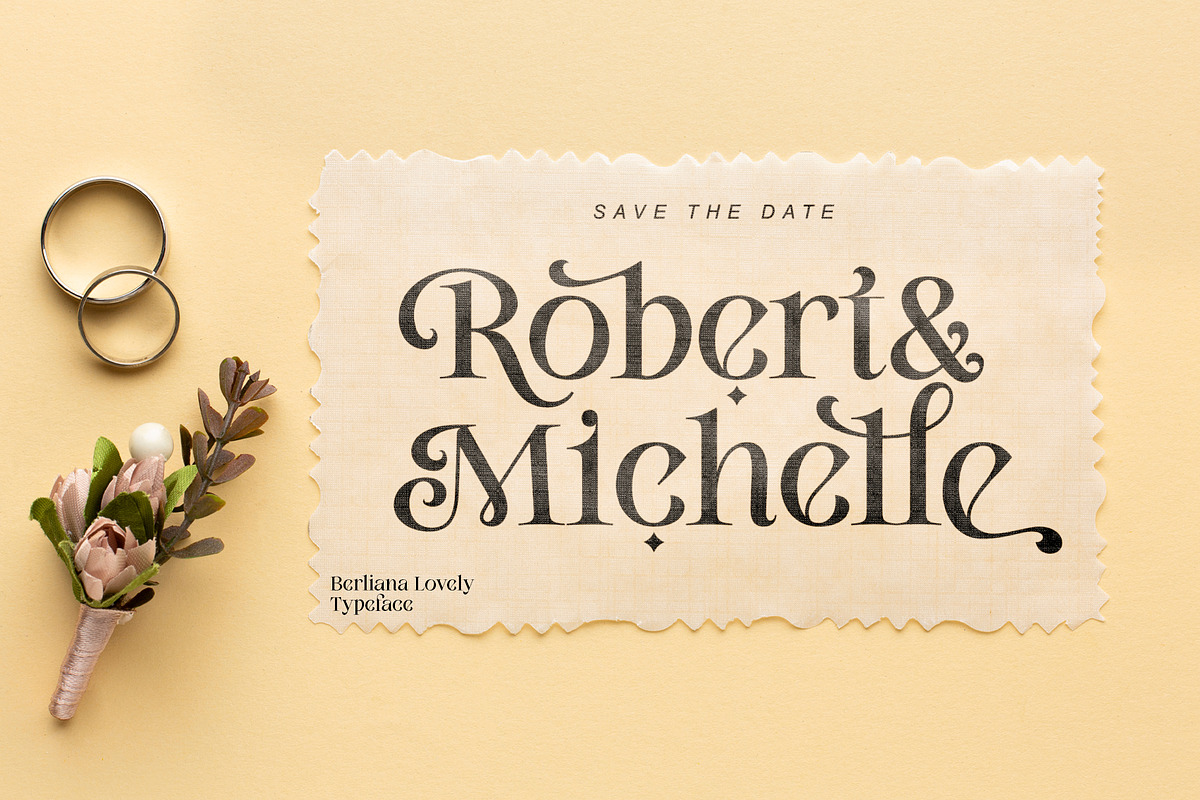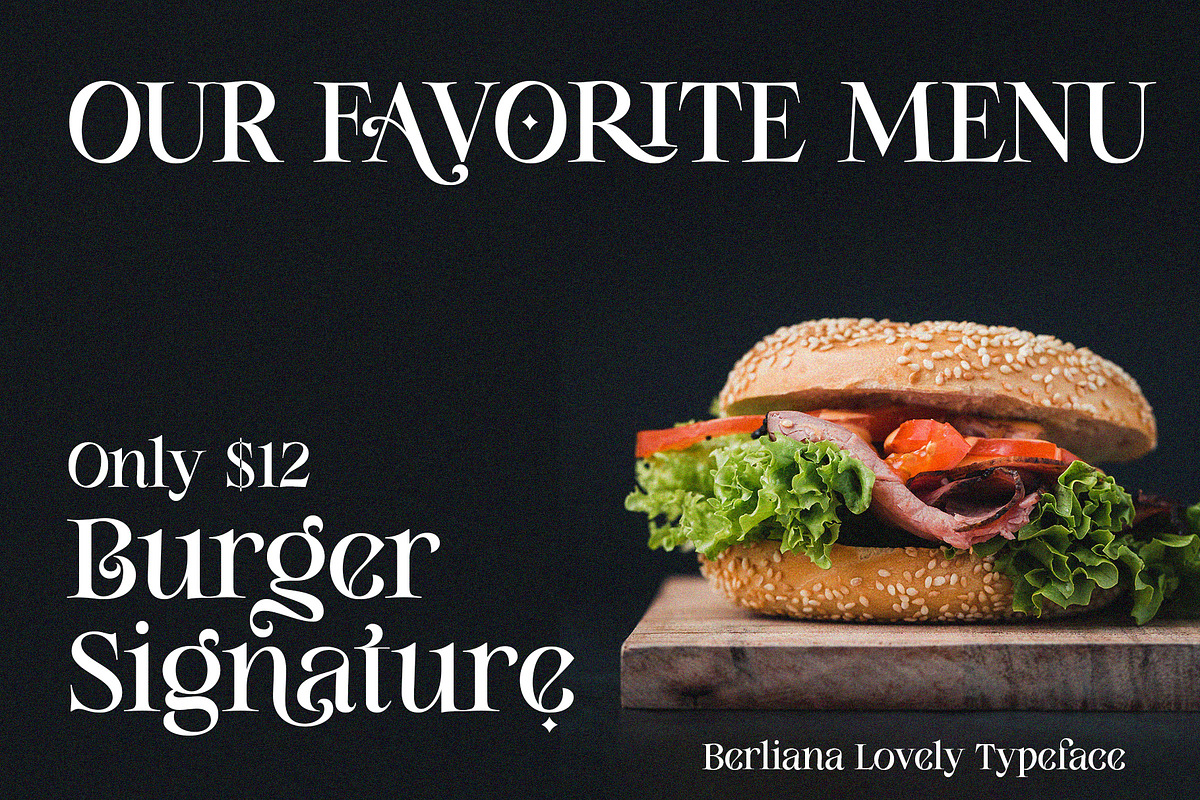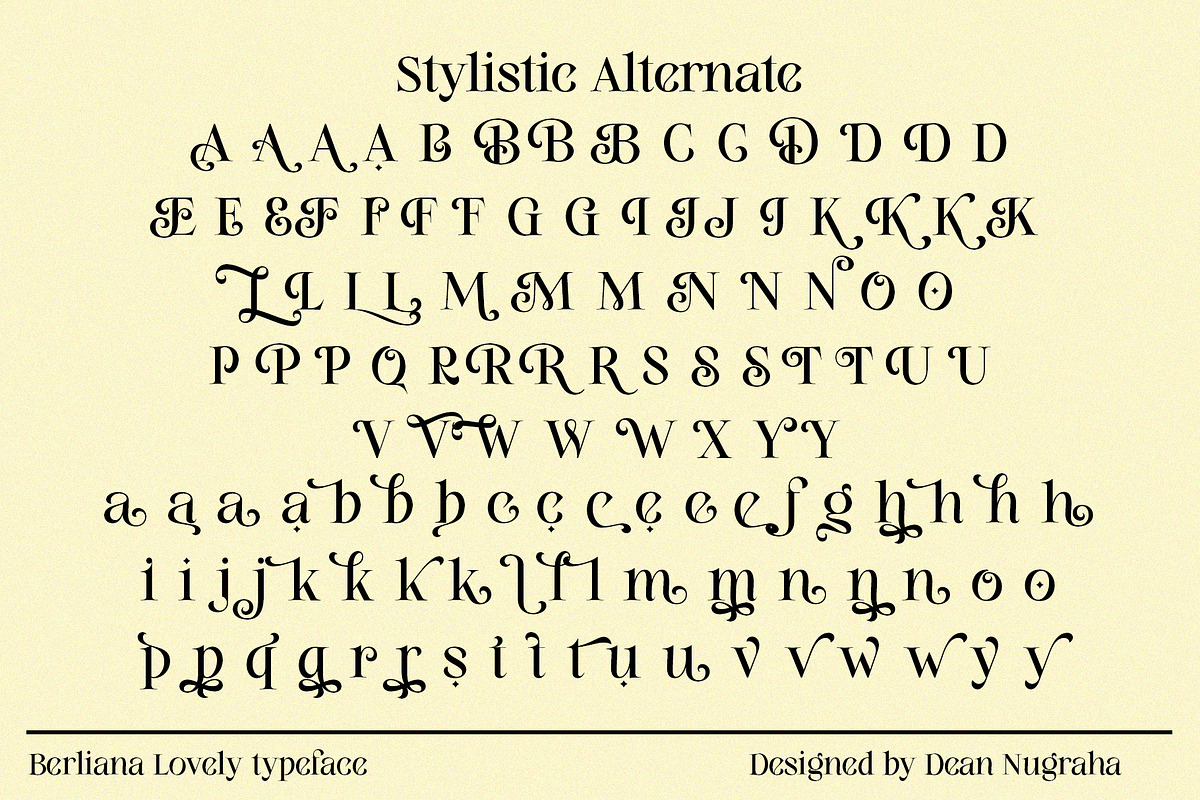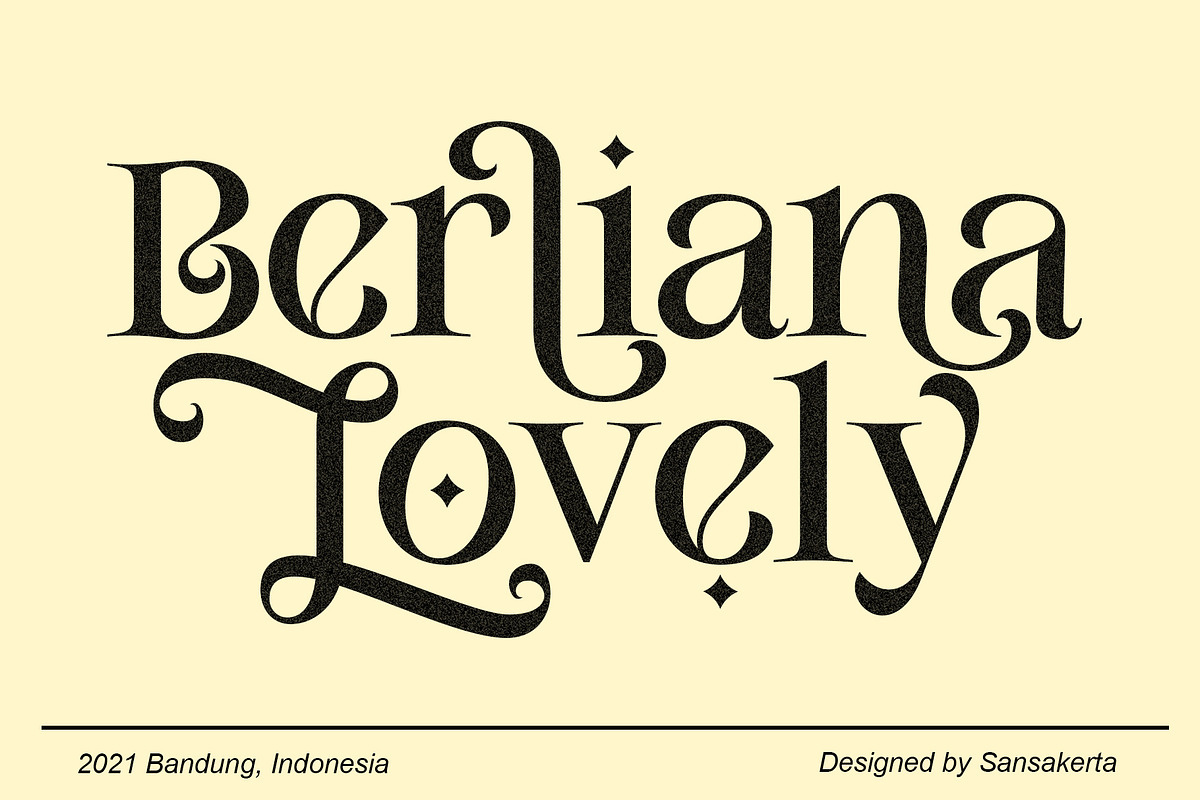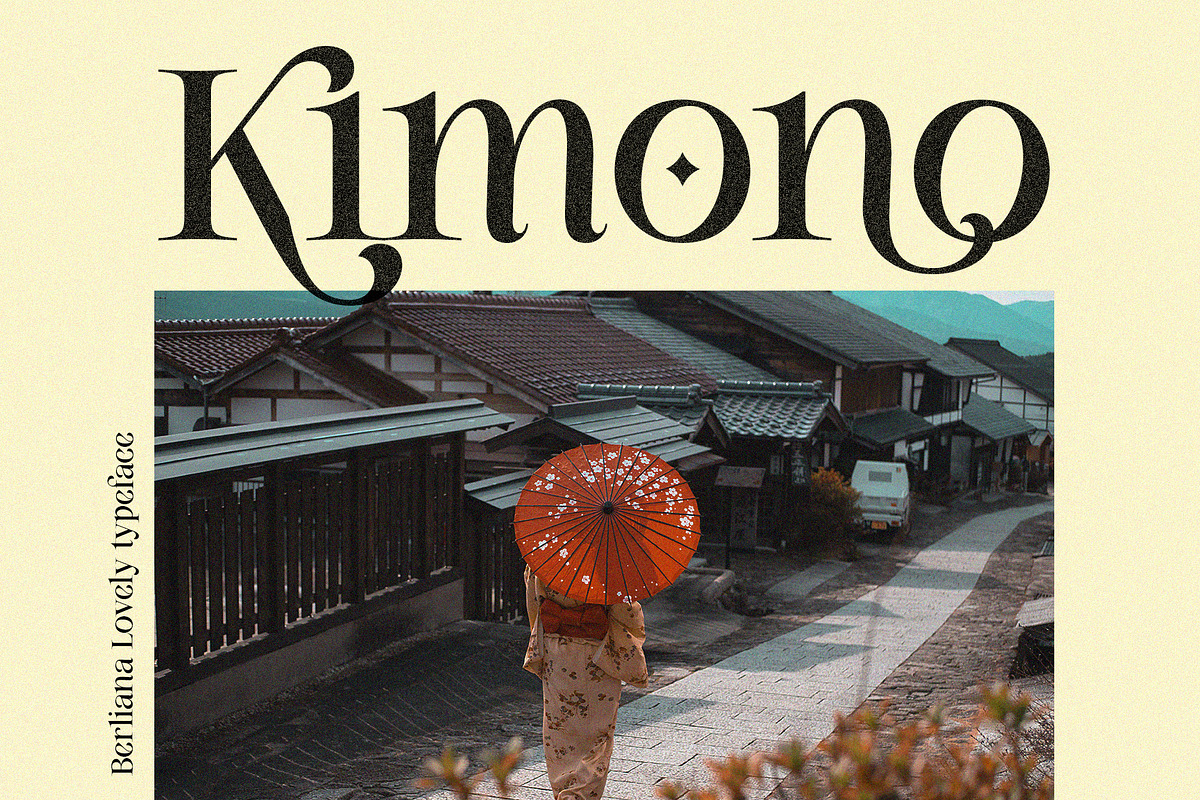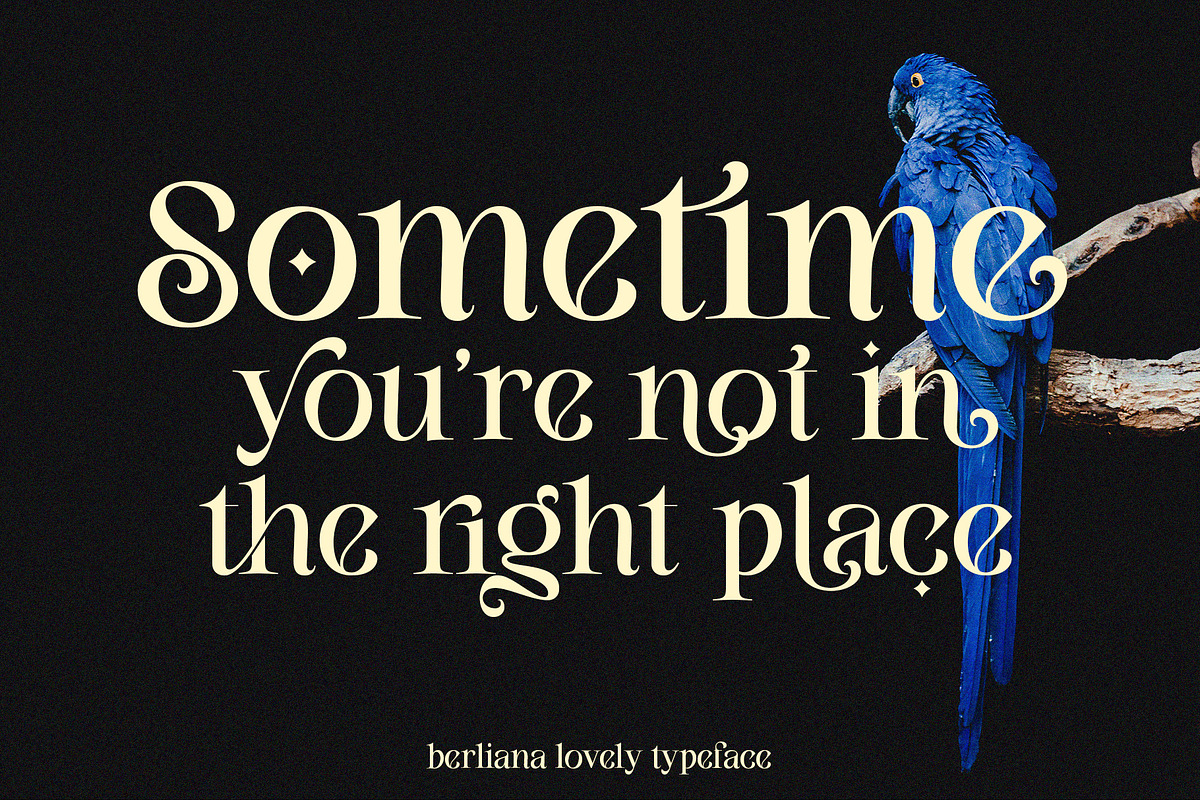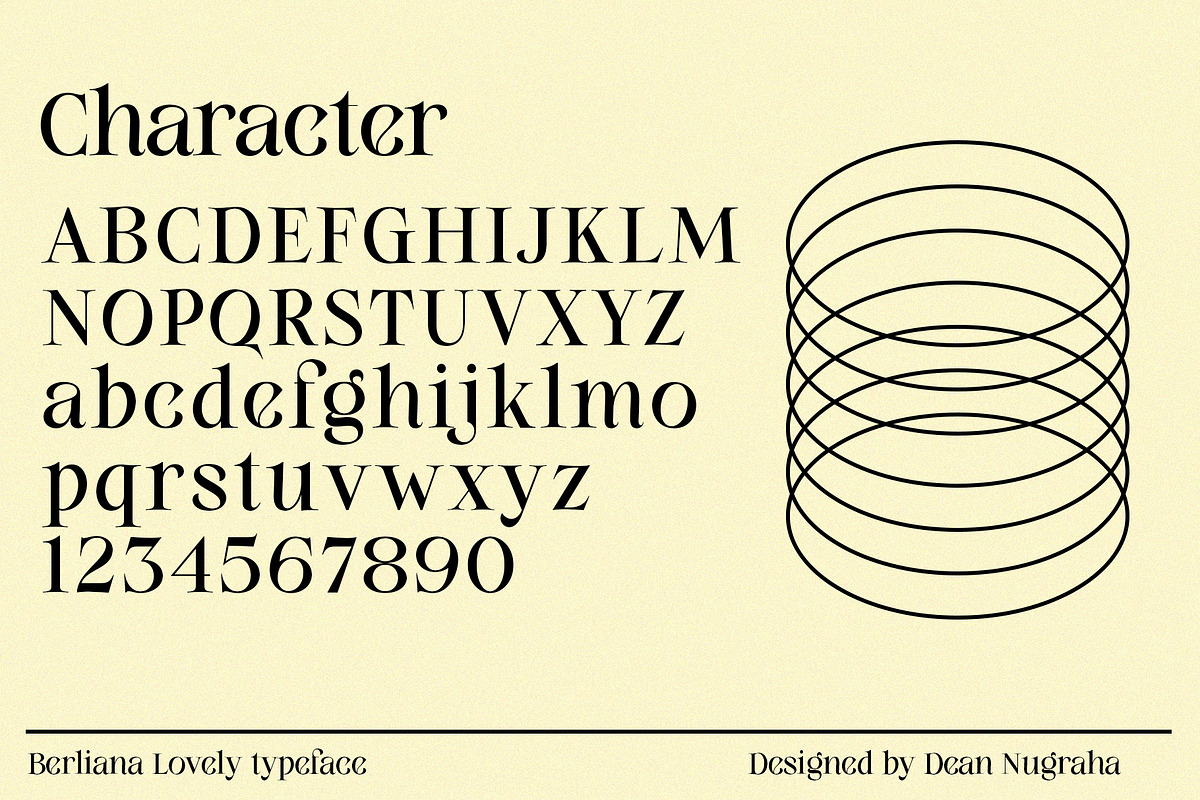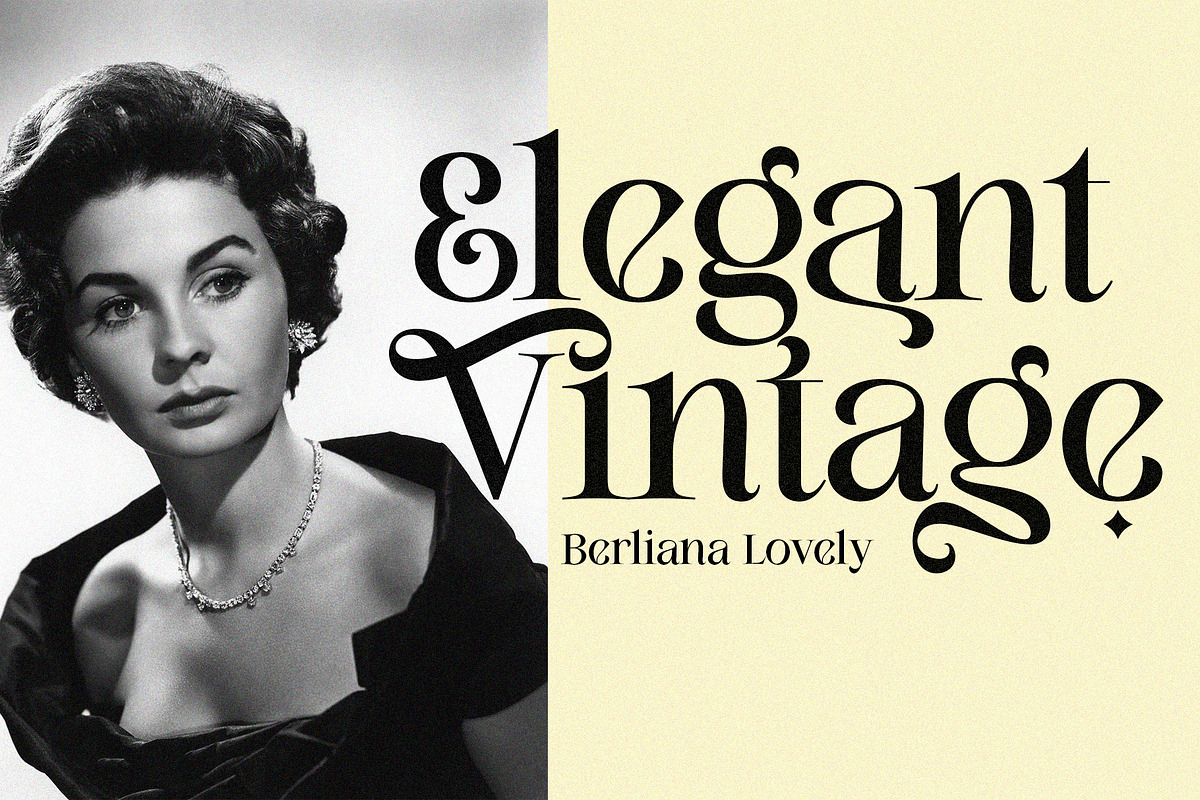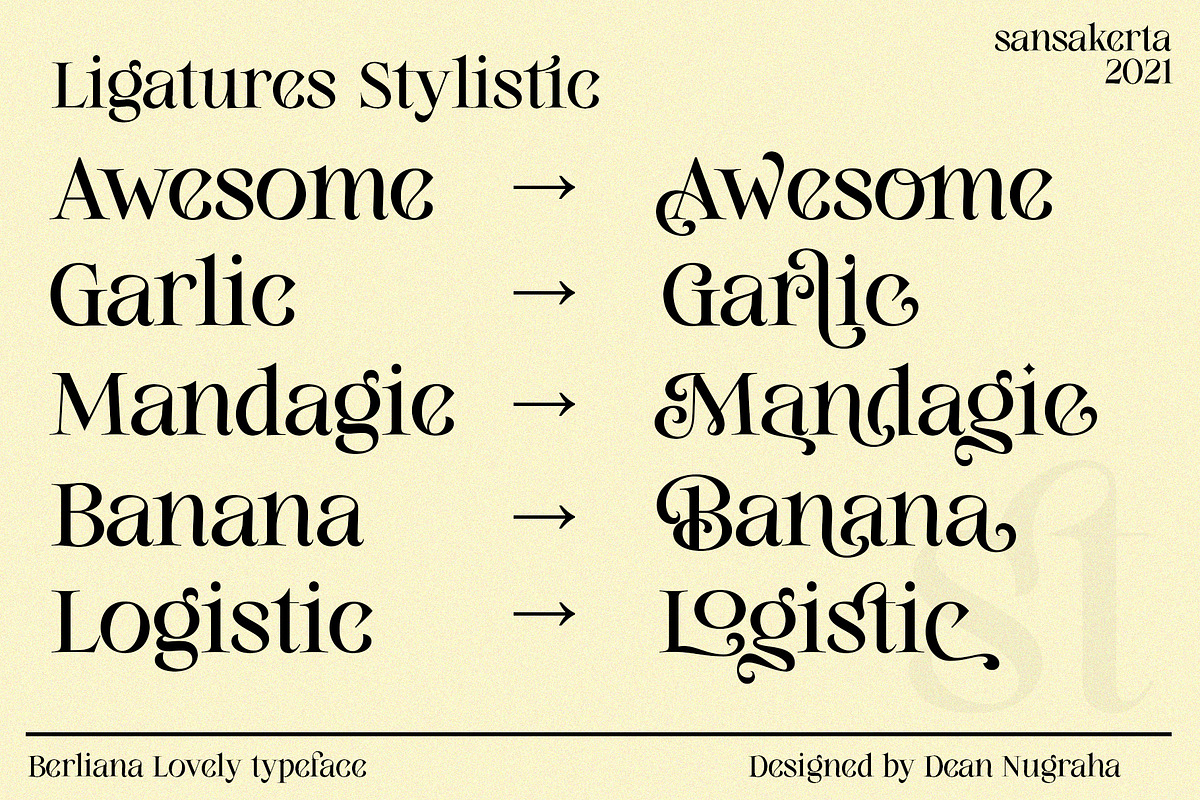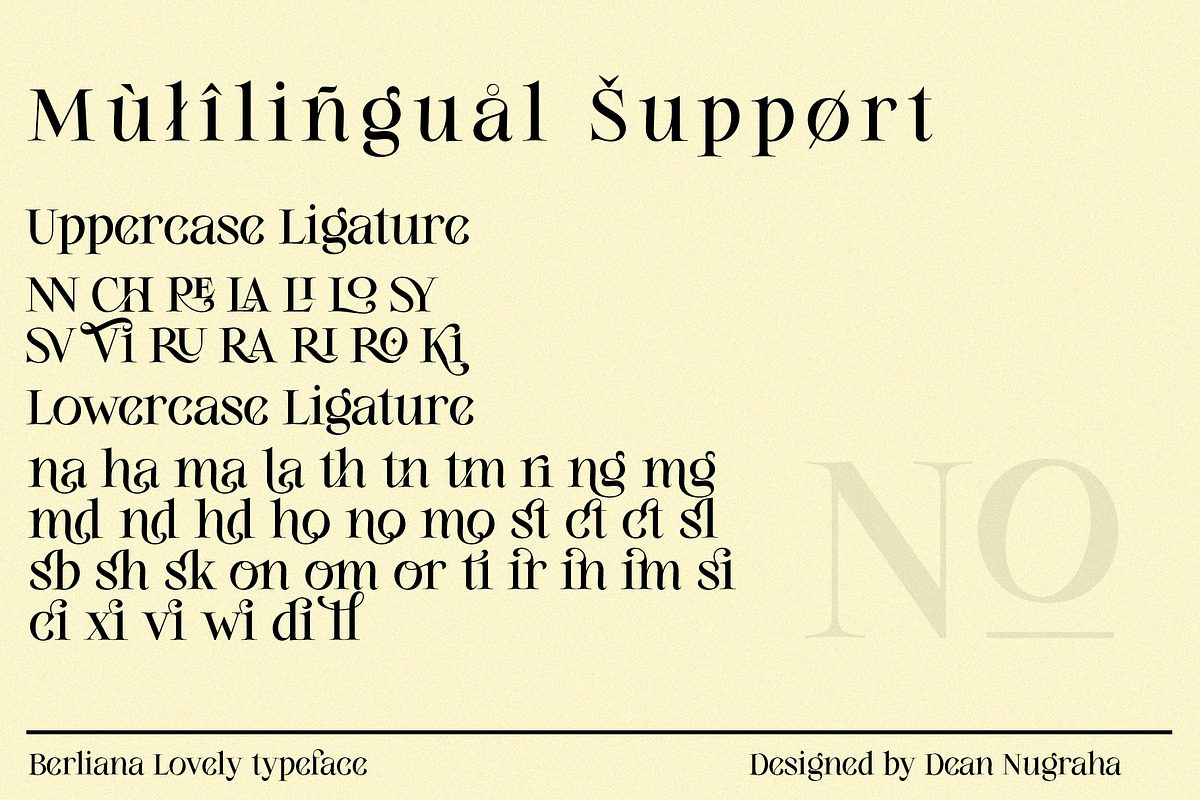
Berliana Lovely
Berliana Lovely is a vintage modern style serif font. this font suitable for making modern or vintage style design. With beautiful ligatures, tons of special alternative glyphs, Stylistic and multilingual support. It's a very versatile font that works great in large and small sizes. Perfect for branding projects, Logo design, Clothing Branding, product packaging, magazine headers, or simply as a stylish text overlay to any background image.